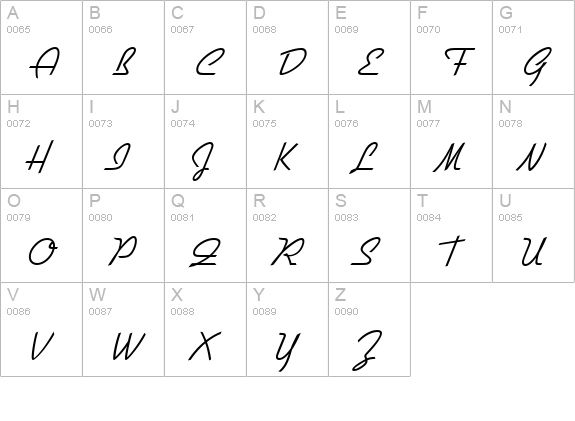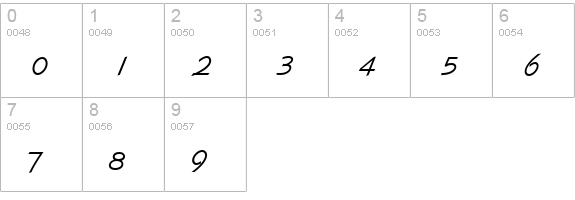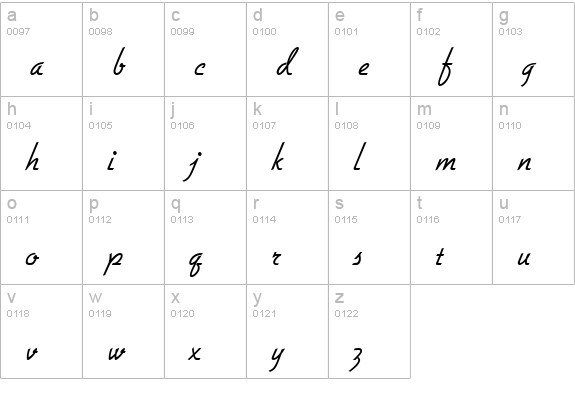
GilliesGotDLig font is a unique and elegant typeface that combines classic sophistication with a modern twist. Its sleek lines and stylish curves make it perfect for a wide range of design projects, from branding to editorial layouts. This versatile font exudes a sense of luxury and refinement, making it an ideal choice for those looking to add a touch of sophistication to their work. The best part? GilliesGotDLig font is completely free to download at FontsMarket.com! So whether you're a designer looking to elevate your projects or a creative individual in search of a beautiful typeface for your personal use, GilliesGotDLig font has got you covered. Don't miss out on this opportunity to enhance your designs with this stunning font - download it today and see the difference it can make!